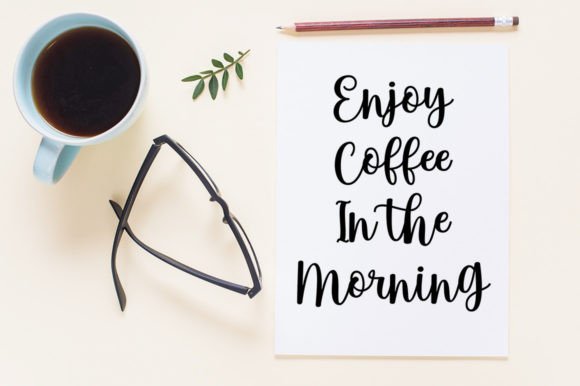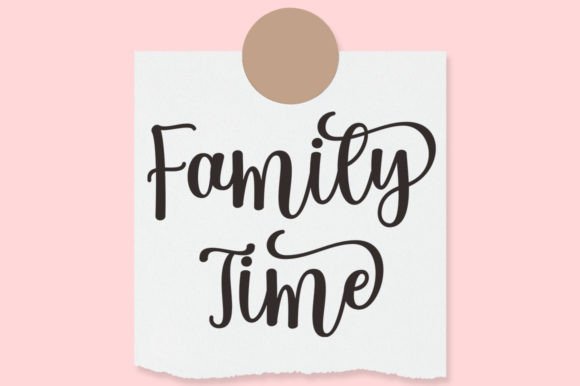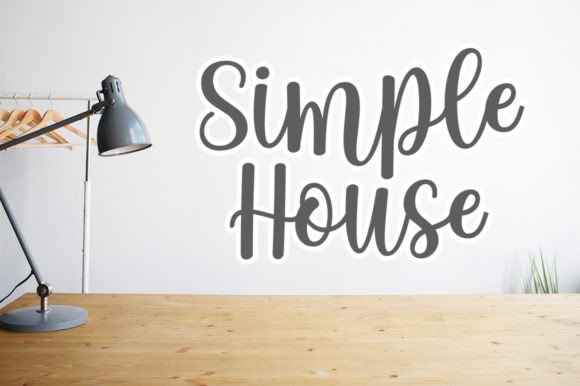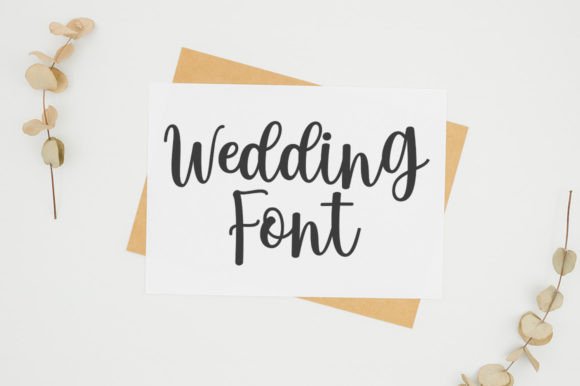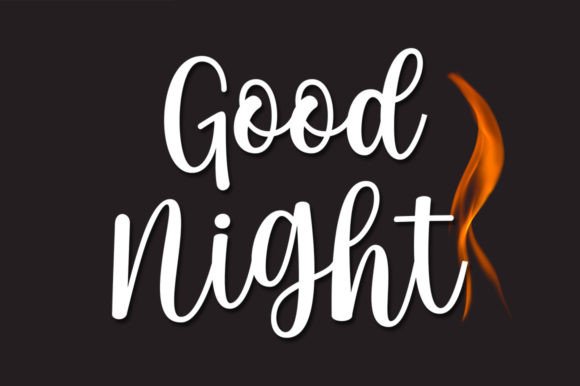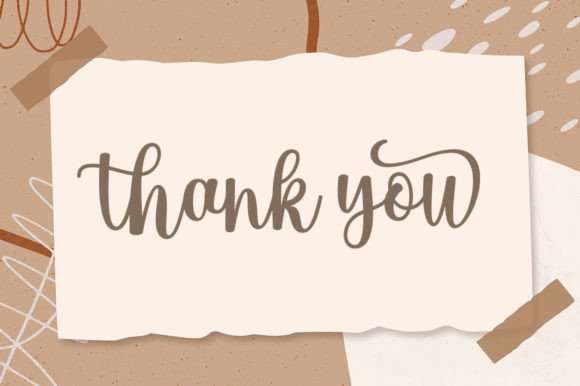
Adding a Personal Touch to Your Designs
There’s nothing quite like the feeling of creating something truly unique. You’re brainstorming ideas, sketching out concepts, and experimenting with different fonts – and suddenly, the perfect combination clicks. For designers, this ‘aha’ moment is a thrill like no other. But what happens when you want to infuse your design with a personal touch that sets it apart from the rest?
That’s where the Bonita Font comes in – a simple and bouncy handwritten script that’s perfect for adding a dash of personality to your projects. This versatile font can be used in a wide range of design applications, from greeting cards and social media graphics to wedding invitations and product labels. For designers, the Bonita Font is a valuable tool that can help take their designs to the next level.
Bonita Font Key Features
- Unique Characteristics: Bonita Font features a distinctive, elegant script style with flowing connections between letters, making it ideal for creative and artistic applications.
Bonita Font Review
Overall, I think Bonita Font is a cute and charming script font. It’s perfect for adding a touch of whimsy and personality to your designs. ✨ I love how the font is playful and elegant at the same time, making it ideal for a wide range of projects.
The font has a nice, smooth texture and a consistent line width, which makes it easy to read and use. ✨ The uppercase letters are especially beautiful, with intricate details and flourishes that add to the font’s charm. ✨ However, the lowercase letters can be a bit tricky to pair with the uppercase letters, which can affect the overall balance of your design.
- Playful and elegant aesthetic
- Smooth texture and consistent line width
- Beautiful uppercase letters
- Lowercase letters can be difficult to pair with uppercase letters
- May not be suitable for body text due to its playful nature
In terms of overall impression, I would give Bonita Font 4 out of 5 stars. While it’s a lovely font, its limitations may make it less versatile than other fonts. However, if you’re looking for a font to add a touch of whimsy to your designs, Bonita Font is definitely worth considering. ⚠️ Just be mindful of its limitations and use it sparingly to avoid overwhelming your design.
Tips for Getting the Most Out of Bonita Font
Use Bonita Font for titles and headings to add a touch of elegance to your designs.
Use it in combination with other fonts to create a unique and visually appealing font combination.
Experiment with different font sizes and styles to find the perfect balance for your design.
Bonita Font is commonly used for:
Luxury branding and packaging
High-end fashion and beauty designs
Any design that requires a touch of sophistication and elegance.